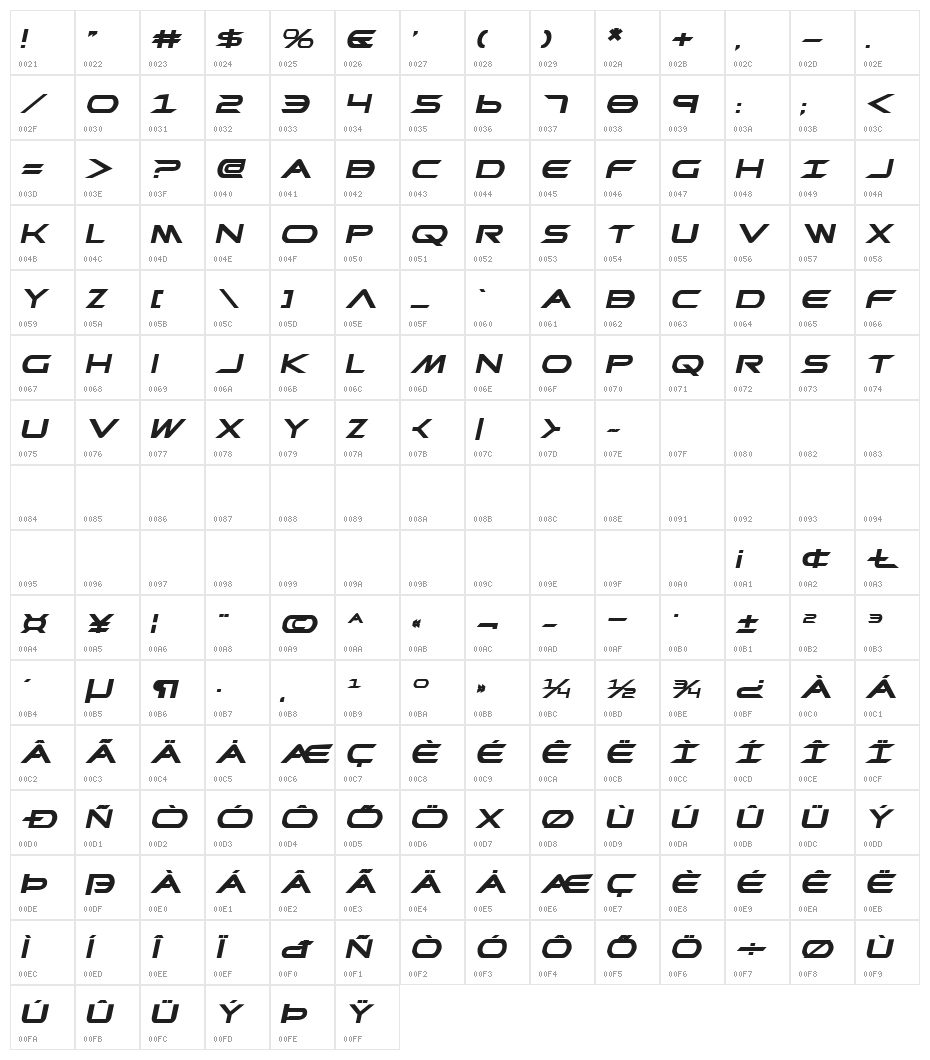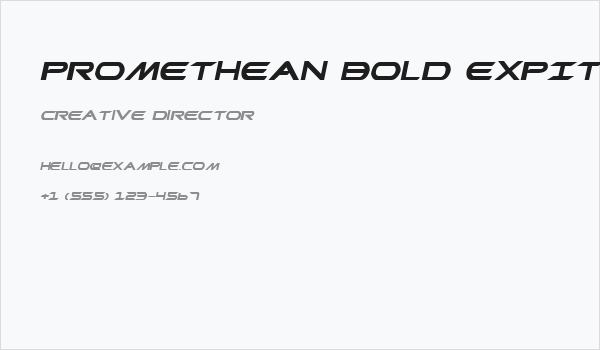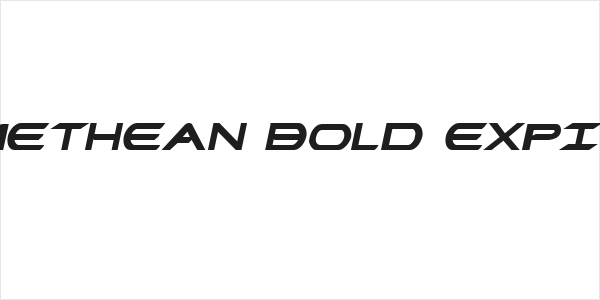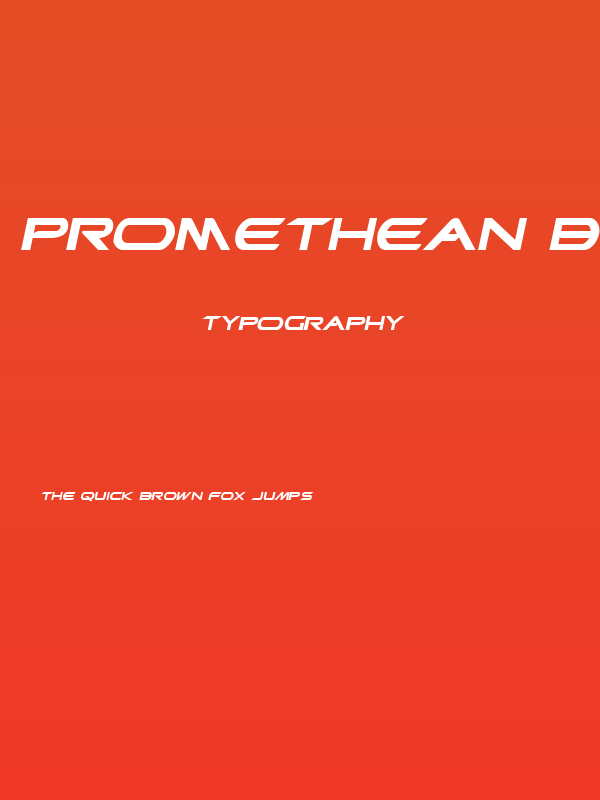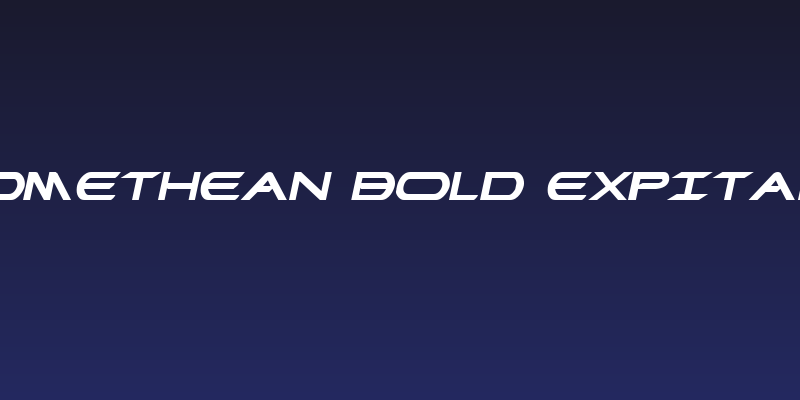
Promethean Bold ExpItalic Font
Promethean Bold ExpItalic Description
This font features a bold and expansive italic style, characterized by its dynamic and futuristic appearance. The letters are sharply angled, giving a sense of motion and speed. The uppercase and lowercase letters maintain consistency in their slanted form, while the numbers and special characters complement the overall design with similar angular cuts and bold strokes. The font's unique style makes it stand out, suitable for projects that require a modern and energetic look.
| Proposed Projects | Ideal for use in technology branding, sports team logos, futuristic movie titles, and dynamic advertising campaigns. |